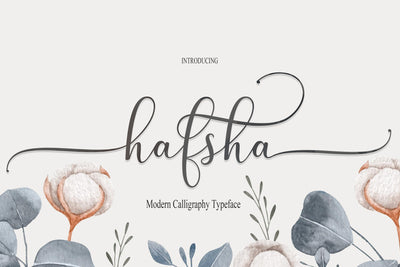
Introducing
hafsha Script a new fresh & modern script with a handmade calligraphy style, decorative characters and a dancing baseline! So beautiful on invitation like greeting cards, branding materials, business cards, quotes, posters, and more!!